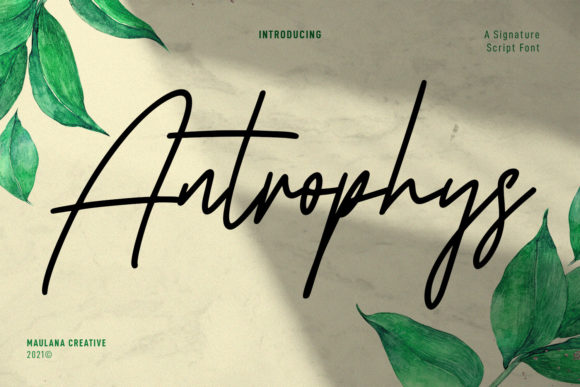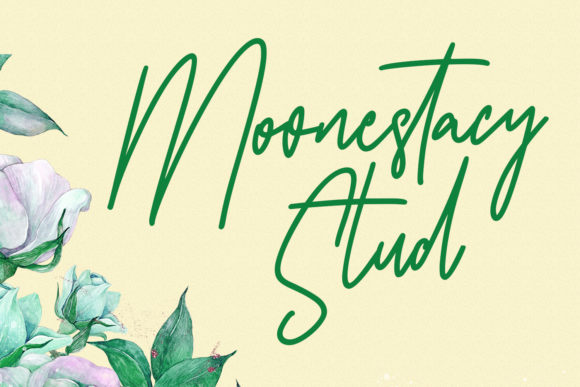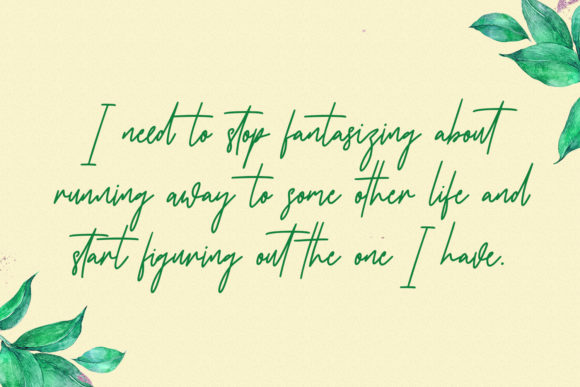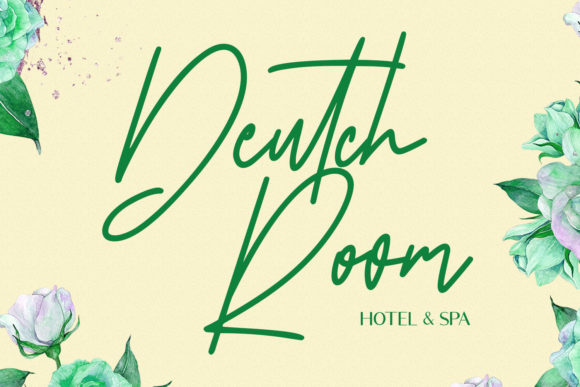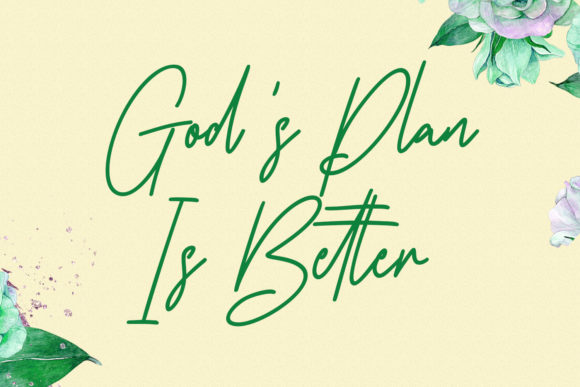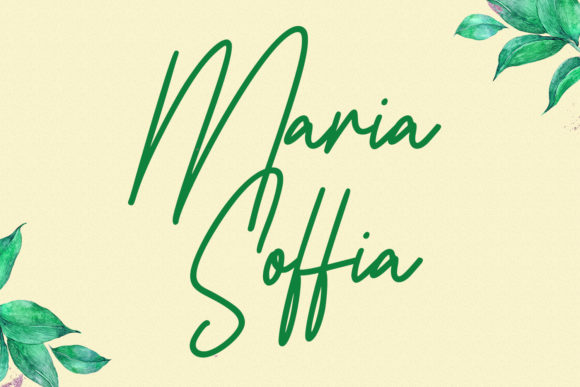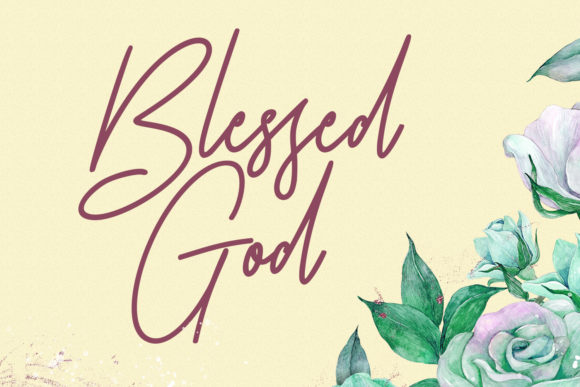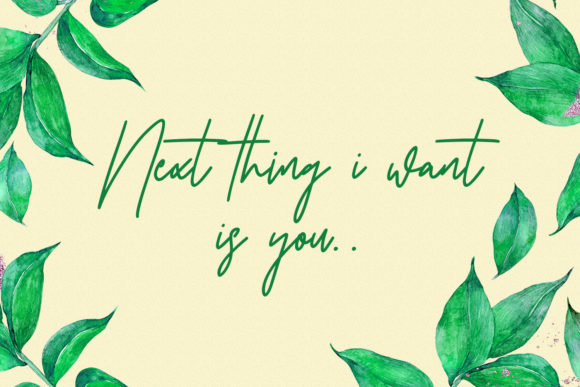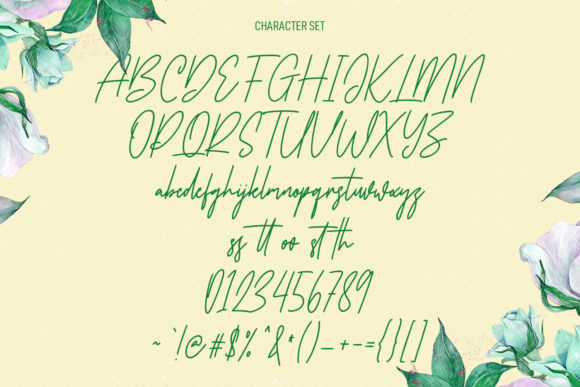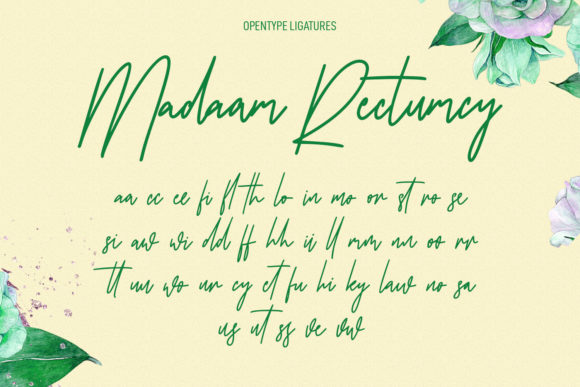
Antrophys Script Font
About Antrophys Script Font
Antrophys is a casual signature script font with a regular mono-line stroke, fun characters, and unique ligatures.
This font is good for logo design, Social media, Movie Titles, Books Titles, short text even long text. Make stunning work with Astrophys font!